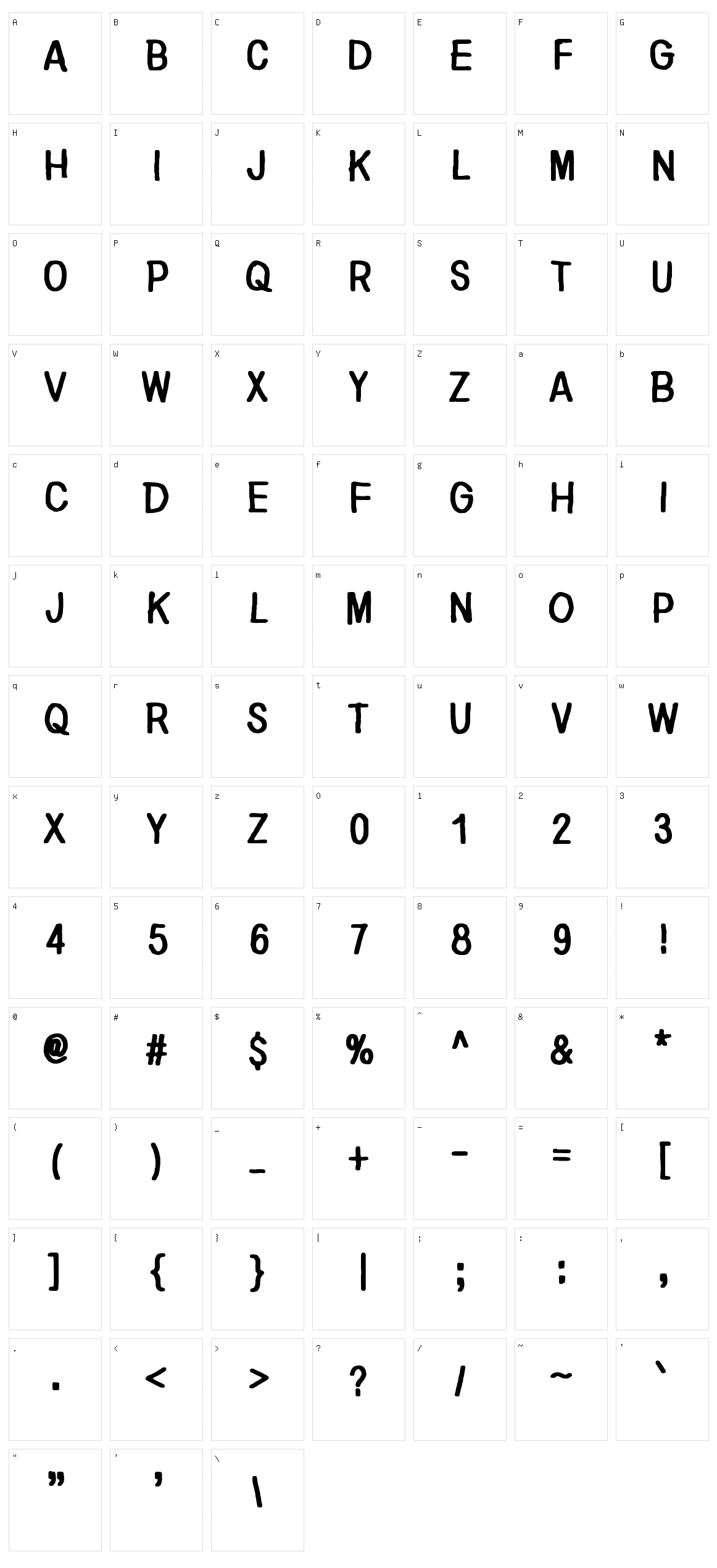
The free font Nirepnirun is carefully designed by junkohanhero, showcasing a thoughtful balance of creativity and usability and falls under the Eroded font style. When you download the ZIP file, it contains only 609.02 KB of font files, making it lightweight and quick to download. Please review the license details below to understand permitted usage and distribution rights. If license information is not available, we recommend using this font for personal projects only or contacting the author directly for commercial usage permissions.